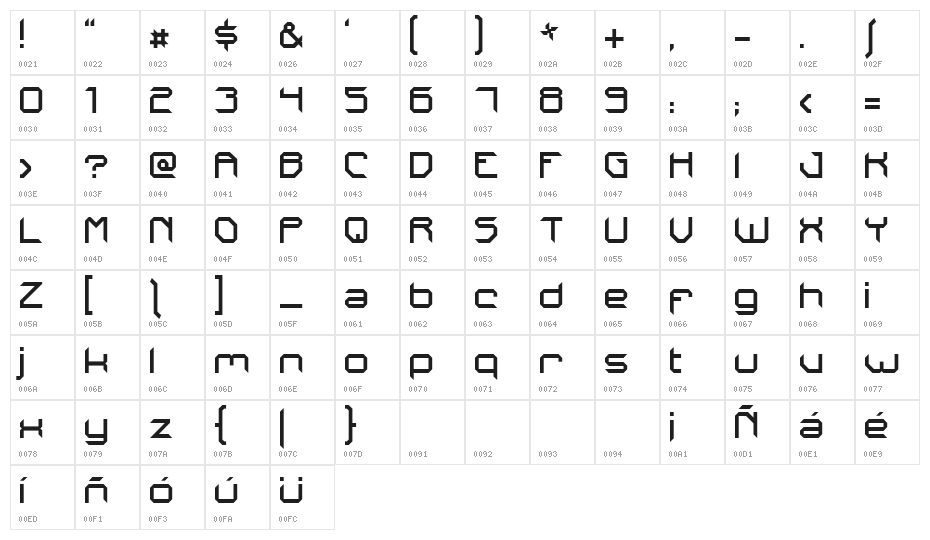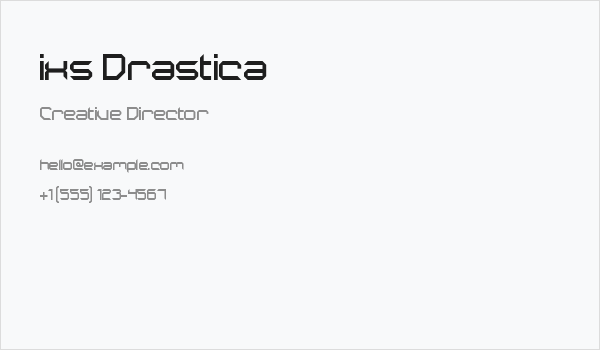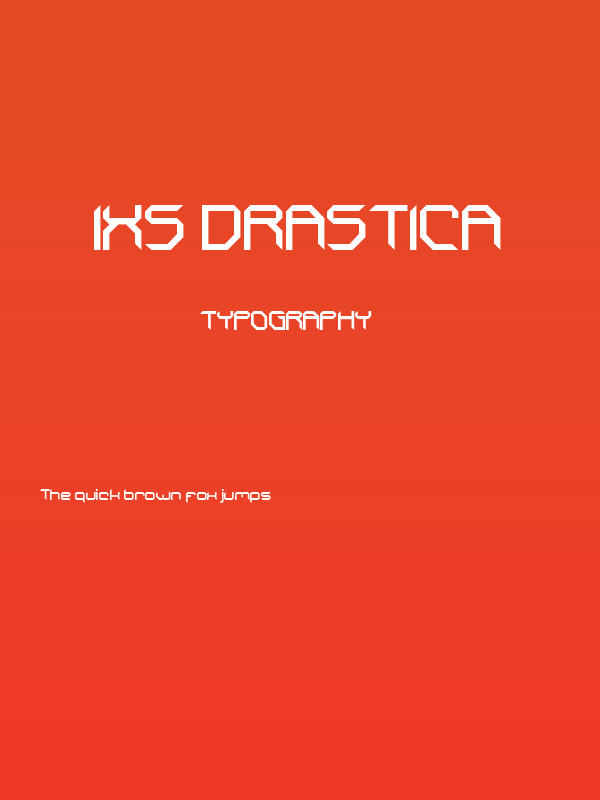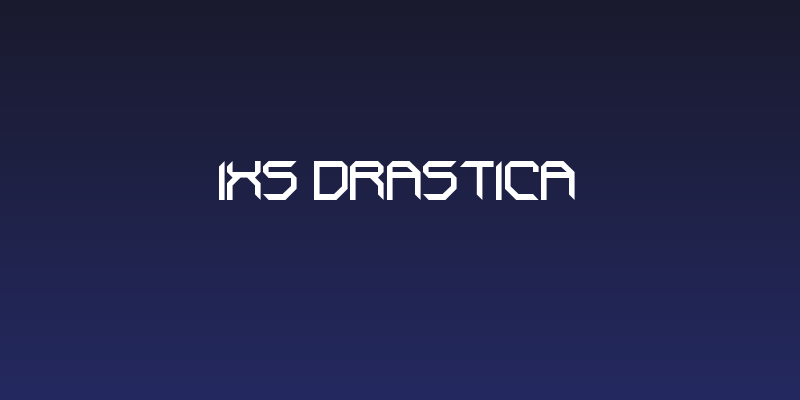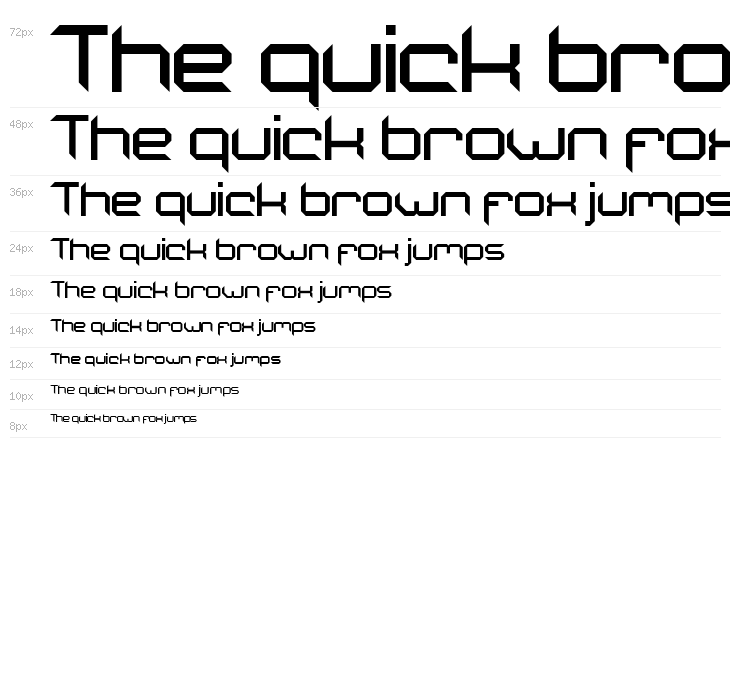
ixs Drastica Font
ixs Drastica Description
This font features a bold, geometric design with sharp angles and a futuristic aesthetic. The characters are constructed with straight lines and angular cuts, giving it a distinctive, edgy appearance. The uppercase and lowercase letters maintain a consistent style, with uniform stroke widths and a modern, digital feel. The numerals and special characters follow the same design principles, ensuring a cohesive look across all elements. This font is ideal for projects that require a strong, impactful visual presence.
| Proposed Projects | Ideal for sci-fi themed designs, technology branding, video game titles, and modern posters. |